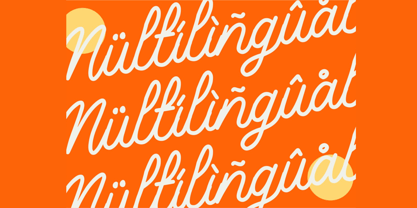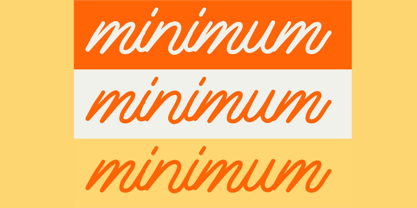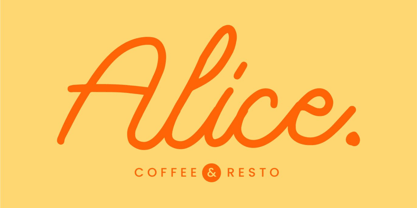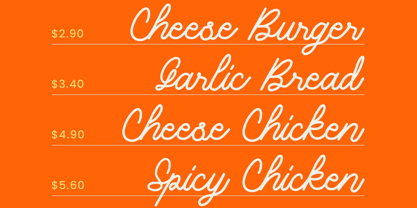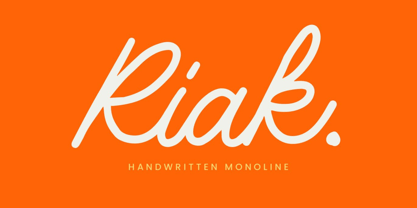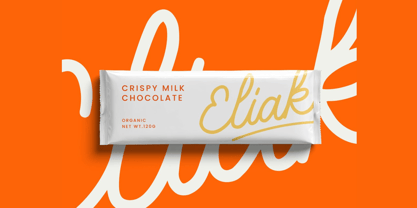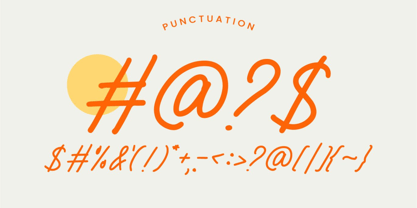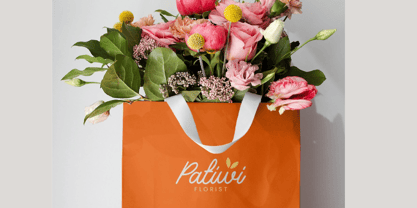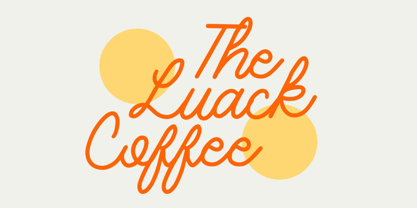
Relc
Relc is a smooth and elegant handwritten monoline font that brings warmth, personality, and a modern handcrafted feel to your creative projects. Designed with fluid curves and consistent stroke weight, this typeface perfectly balances the charm of casual handwriting with a refined, minimalist touch.
Ideal for branding, social media graphics, logos, invitations, packaging, blog headers, and more, Relc offers a clean and approachable aesthetic that stands out both in print and digital formats. Its light and airy lines create a relaxed yet polished vibe that enhances any design with authenticity.
Key Features:
• Monoline Handwritten Style – Consistent stroke weight with a natural script flow
• Uppercase & Lowercase Letters – Complete character set for versatile use
• Numerals & Basic Punctuation – Fully equipped for functional design
• Smooth Letterforms – Perfect for creating elegant, relaxed visuals
• Multilingual Support – Extended character set for global use
Perfect For:
• Personal Branding & Minimal Logos
• Handwritten Notes & Greeting Cards
• Social Media Posts & Quotes
• Wedding & Event Stationery
• DIY Projects & Journals
• Lifestyle Blogs & Feminine Design Themes
Add a touch of simplicity and sophistication to your design with Relc—a monoline handwritten font that expresses warmth, creativity, and personality with every stroke.